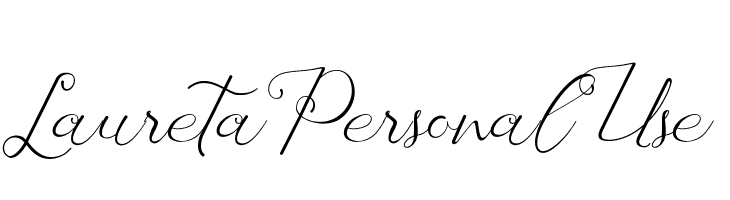
An elegant script font with flowing, cursive letters and decorative swashes.
An elegant and flowing script font with graceful loops and smooth cursive strokes.
A classic calligraphic font with modern elegance and ornate details.